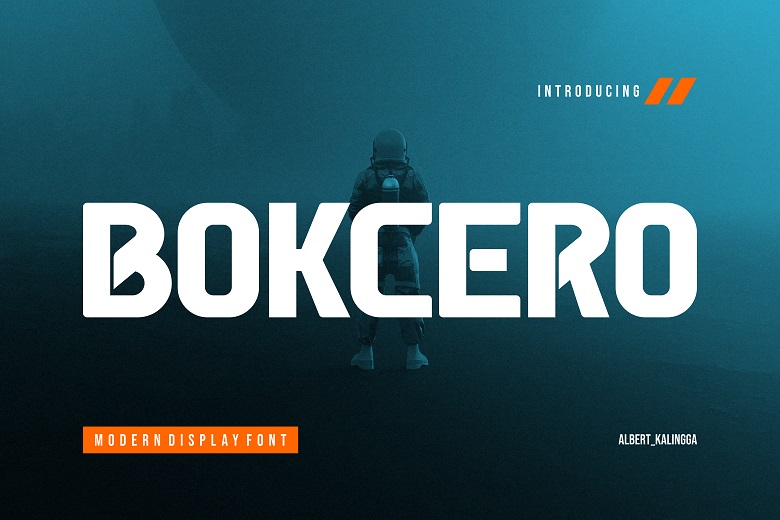
Bokcero Font
Bokcero is a very contemporary font which is best suited for display purposes. Spruce it up your creations and you will enjoy its outcome! It can be used in design such as elegant logos, branding, travel and tourism, layout magazines, beauty products or packs, quotes and can alos be applied as a text overlay over any background image.
Bokcero Display Font